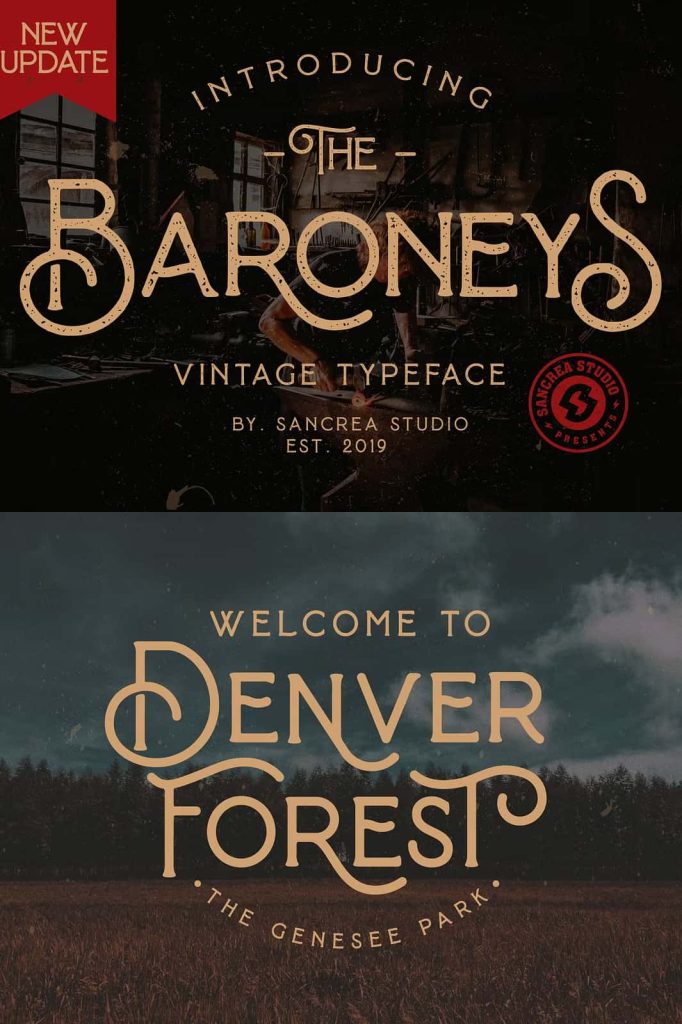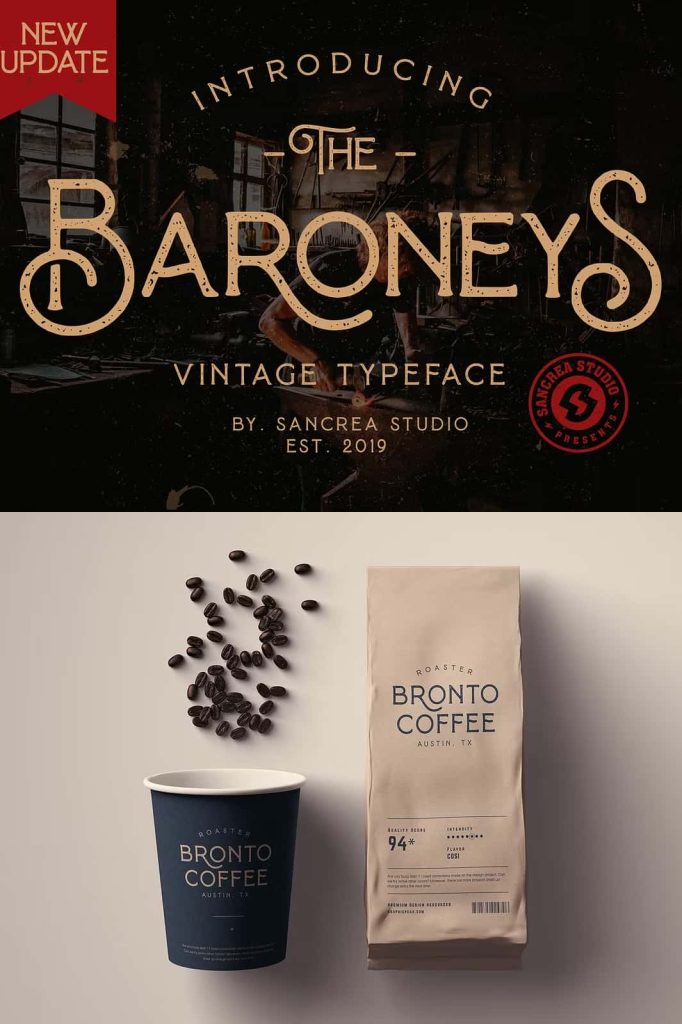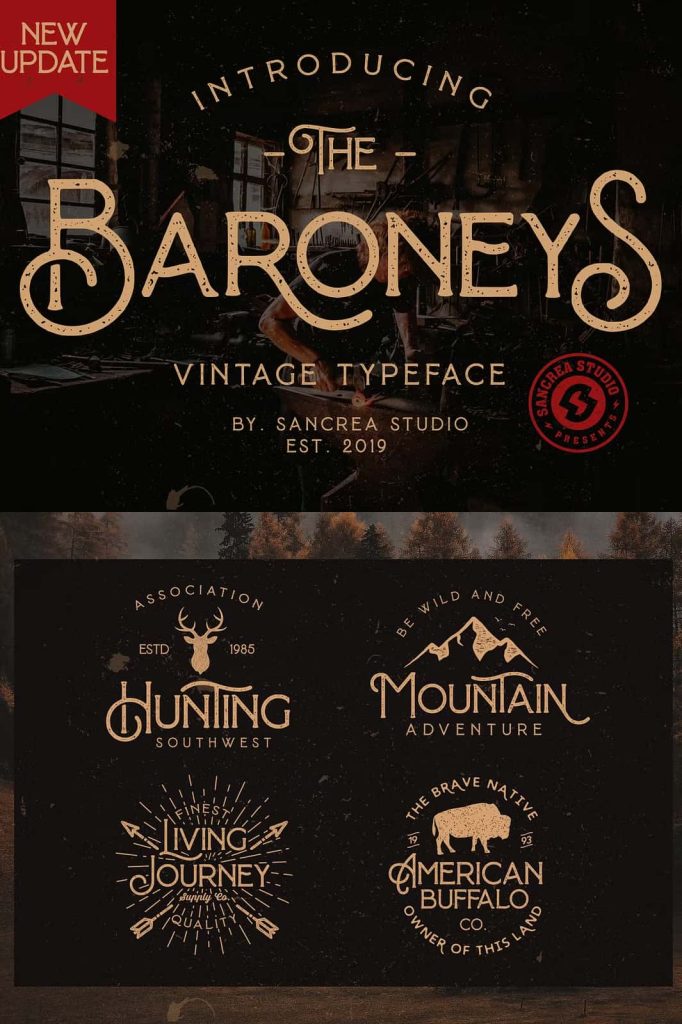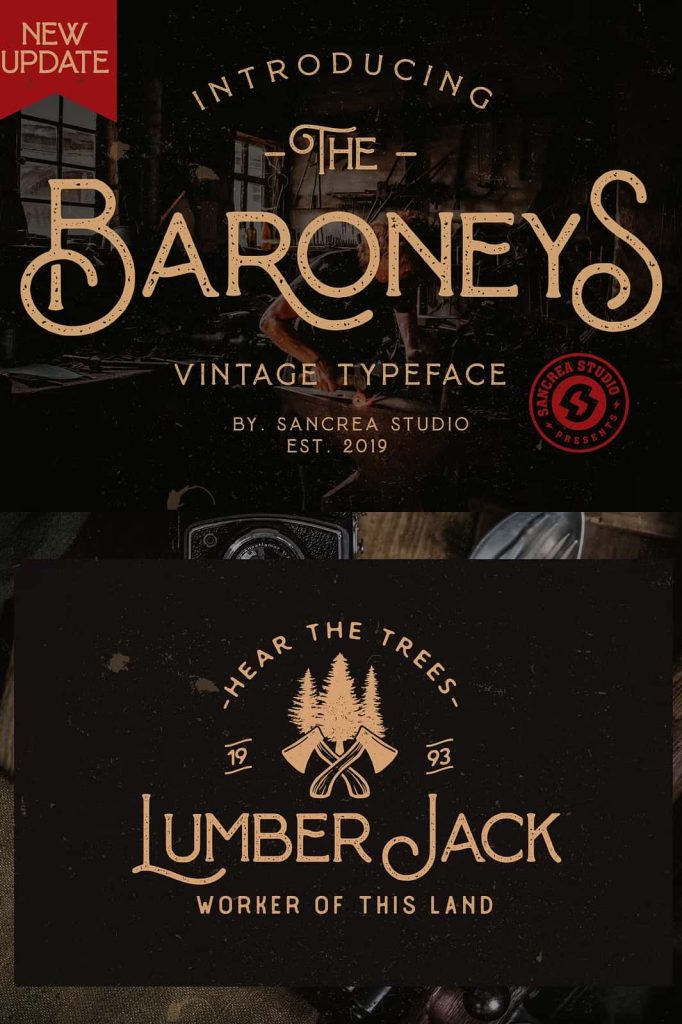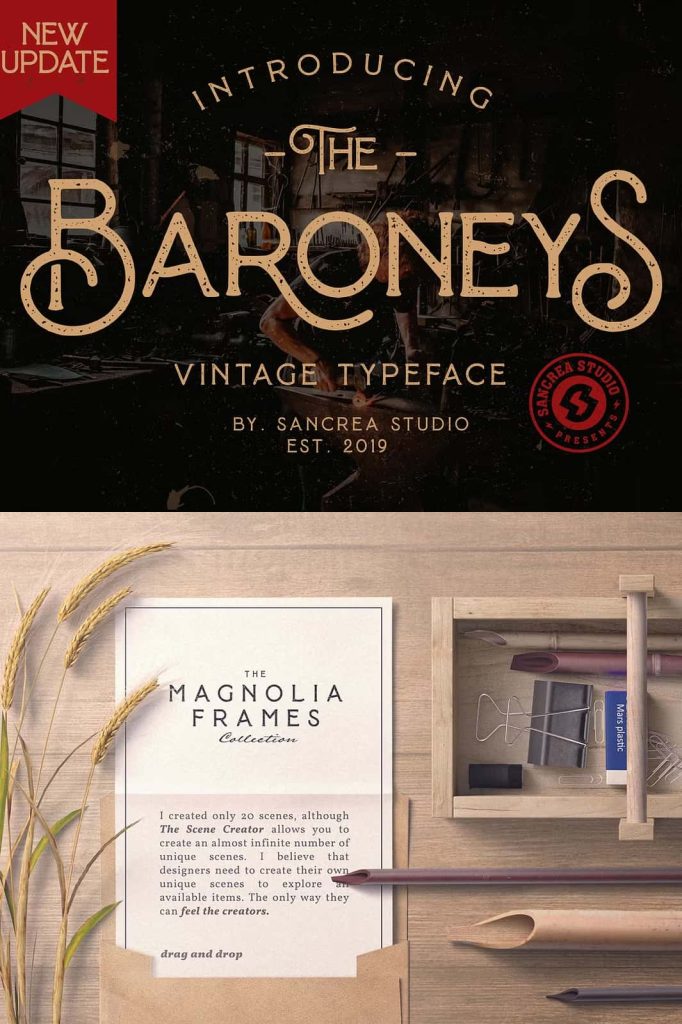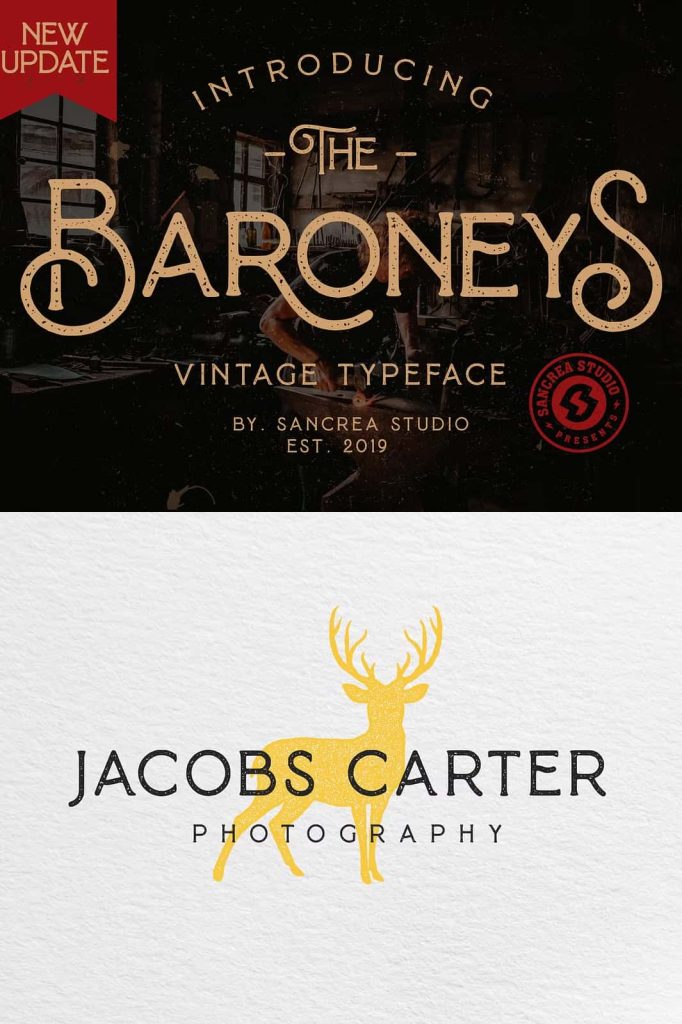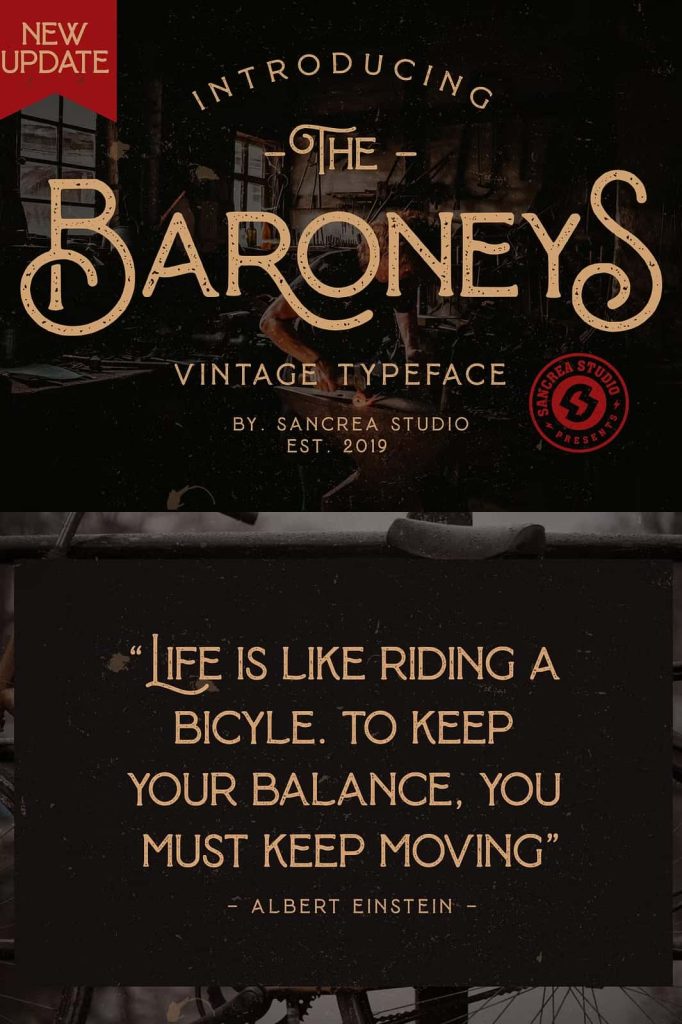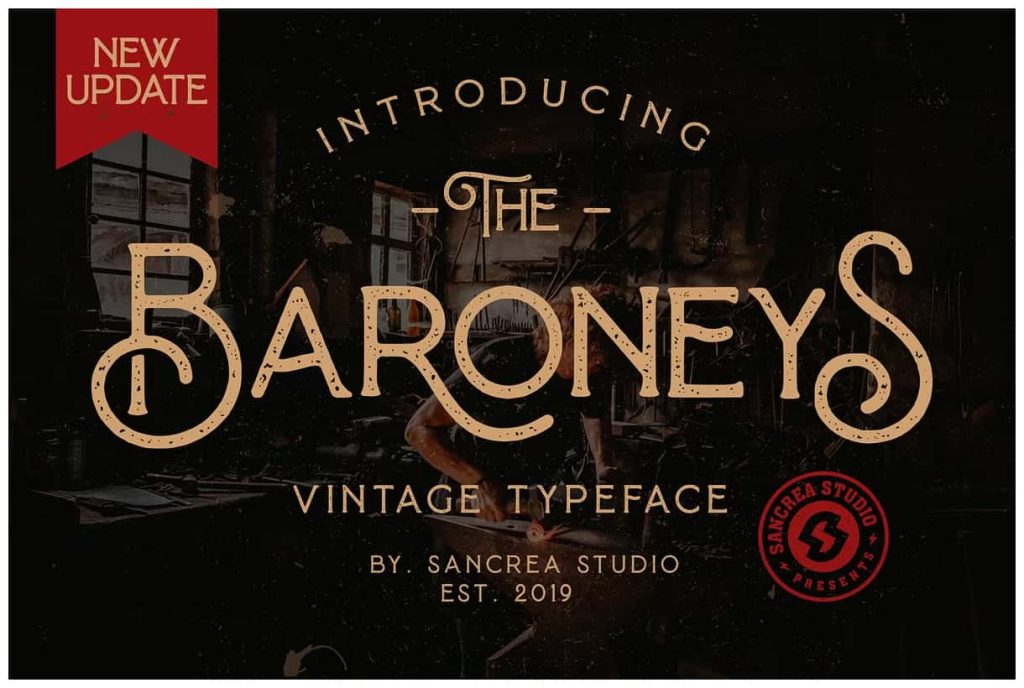
Baroneys – Vintage TypefaceleastedApril 19, 2025Fonts Baroneys is a vintage serif font textured, suitable for your next creative project like suitable for art Download